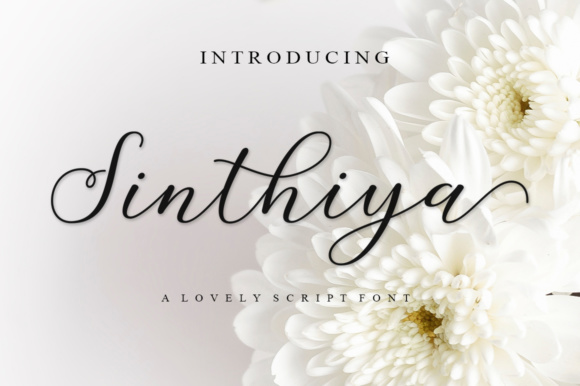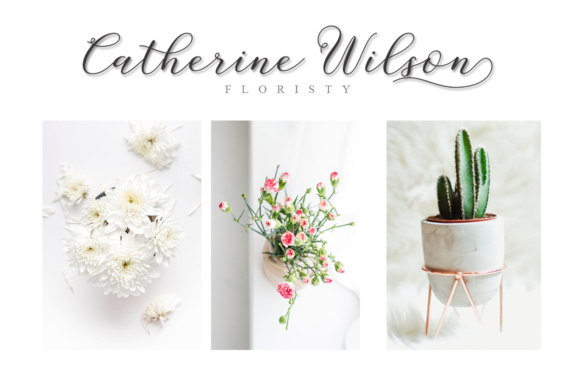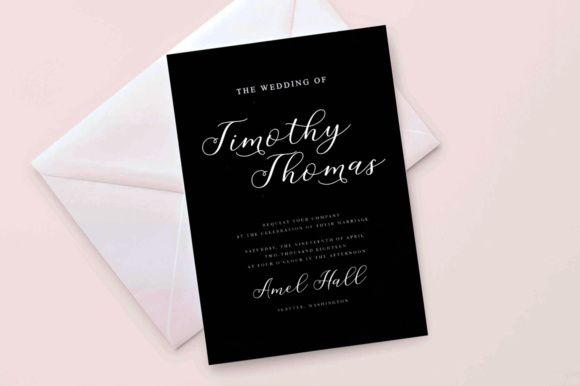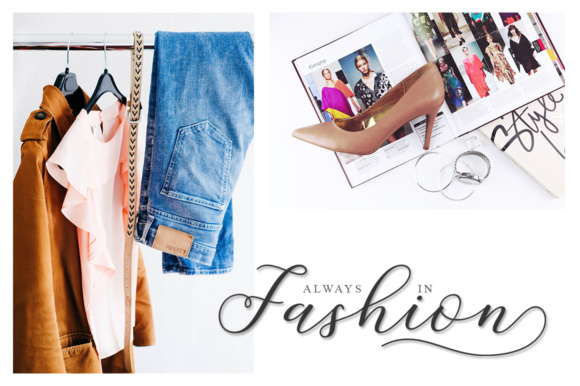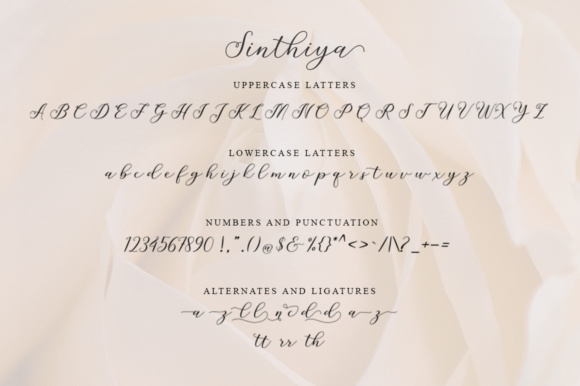
Sinthiya Script Font
About Sinthiya Script Font
The Sinthiya is an elegant script font with a casual and dynamic look. It can be used for logos, branding, greeting cards, quotes, and much more!